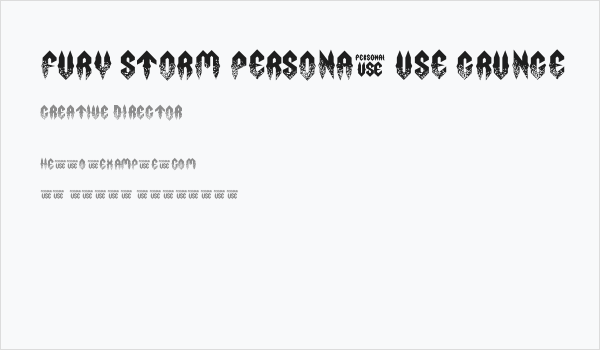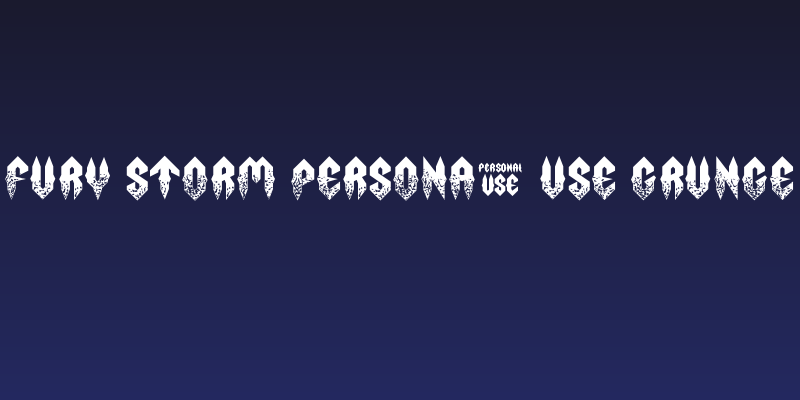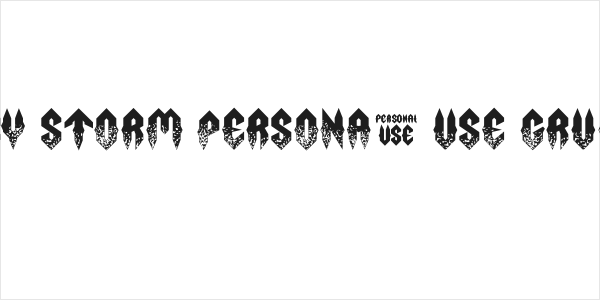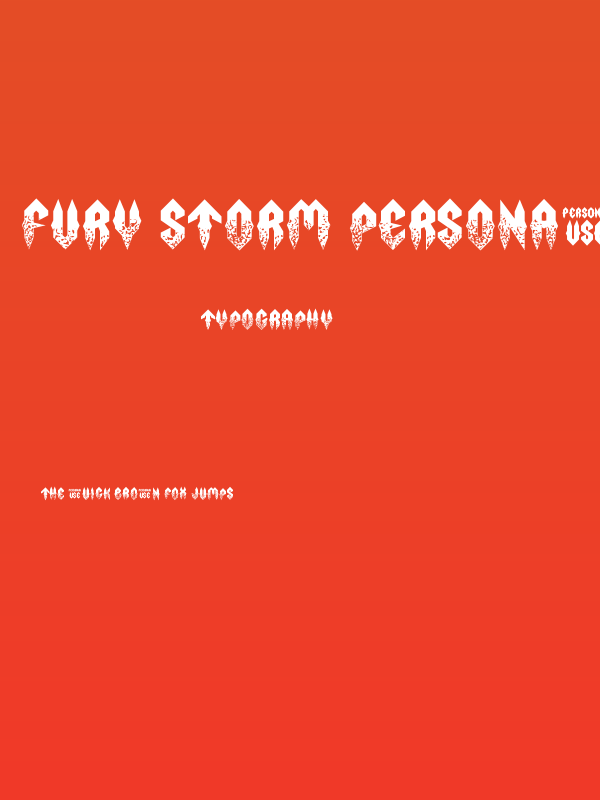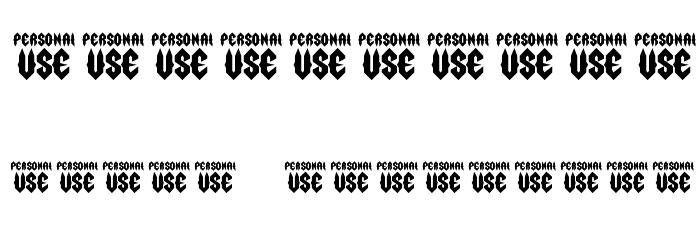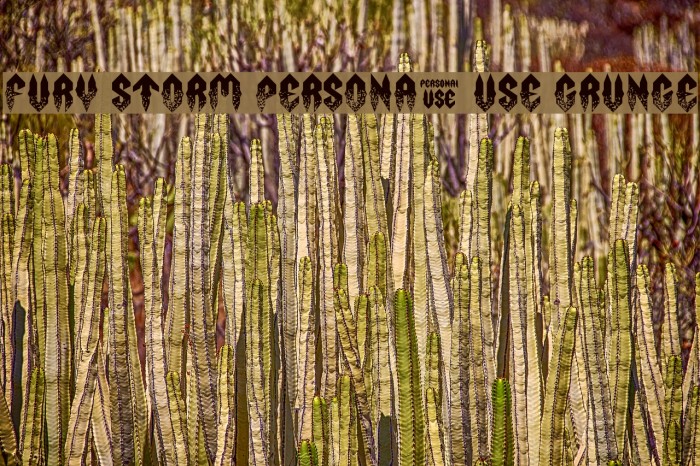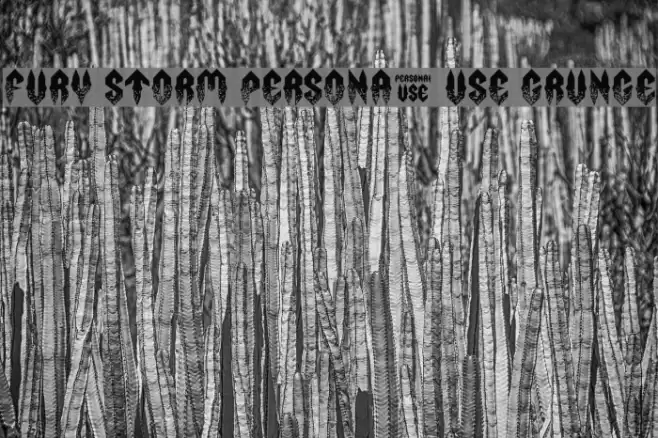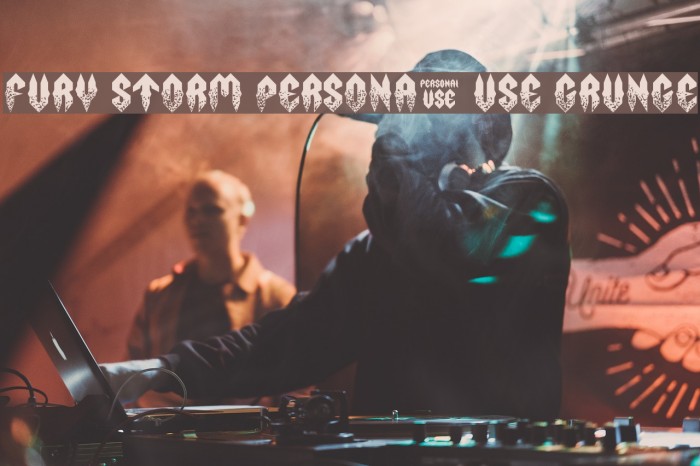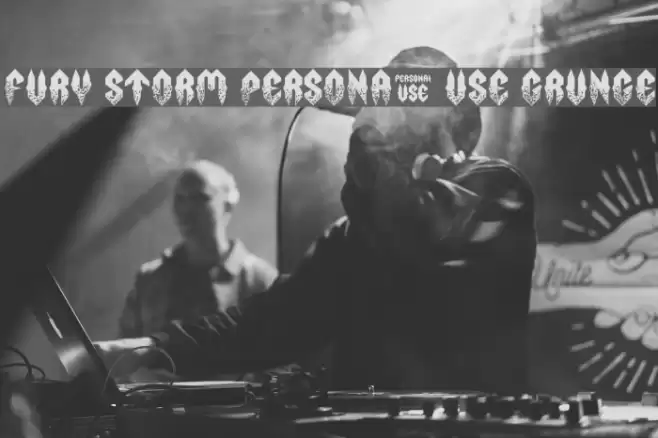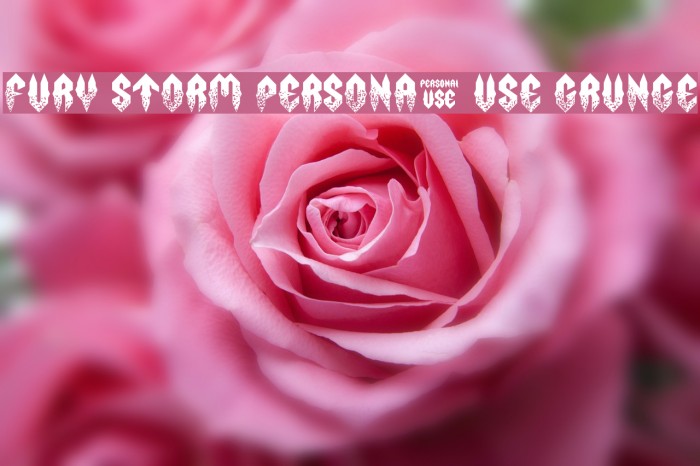
Fury Storm Personal Use Grunge Font
Fury Storm Personal Use Grunge Description
This font exhibits a bold, grunge style with a highly decorative and distressed appearance. The characters are jagged and irregular, featuring a textured pattern that gives them a rugged, edgy look. The uppercase letters are particularly striking, with sharp angles and a heavy presence. The lowercase letters maintain the same distressed aesthetic, ensuring consistency throughout the typeface. The numbers and special characters follow suit, adding to the font's cohesive design. This font is ideal for projects that require a strong, rebellious, or alternative vibe, making it perfect for music album covers, posters, or any creative work that seeks to stand out with a gritty, urban feel.
| Overall Style | Grunge, Edgy, Urban |
| Proposed Projects | Ideal for music album covers, posters, and creative projects needing a gritty, urban aesthetic. |